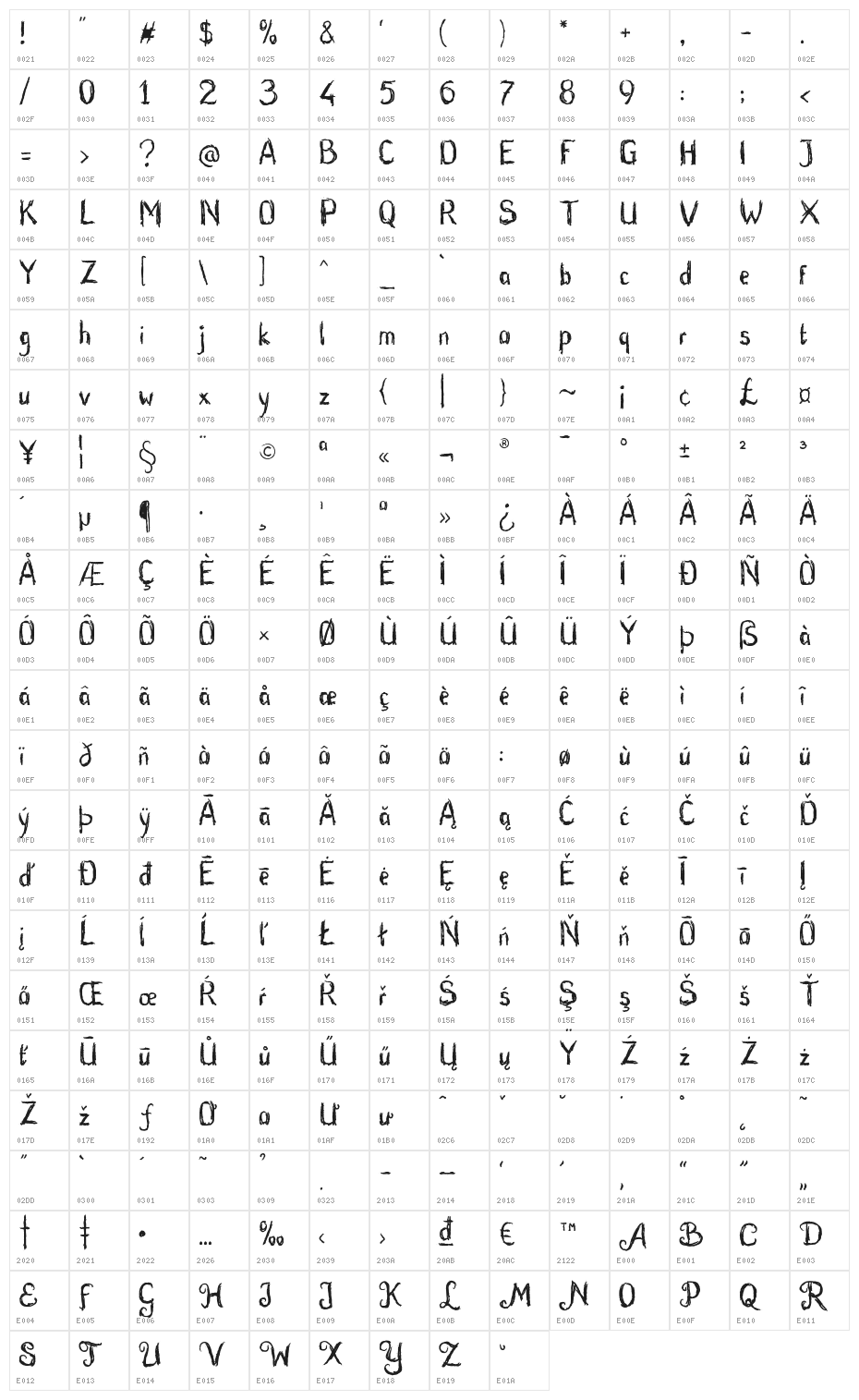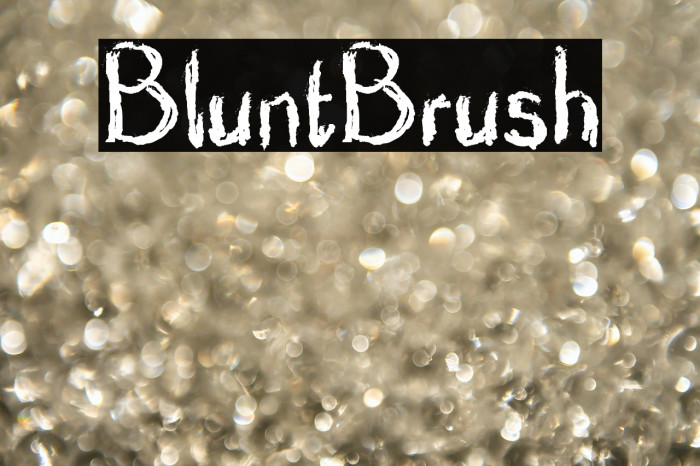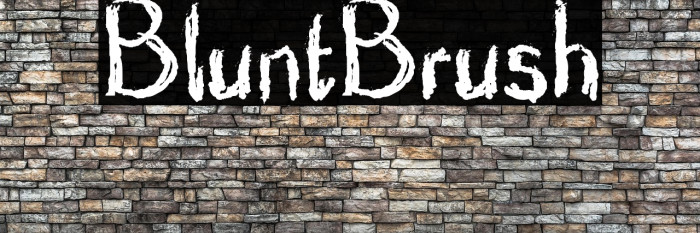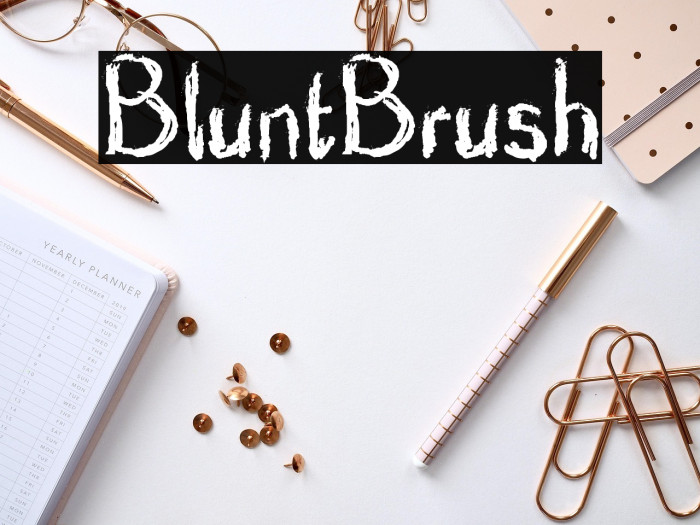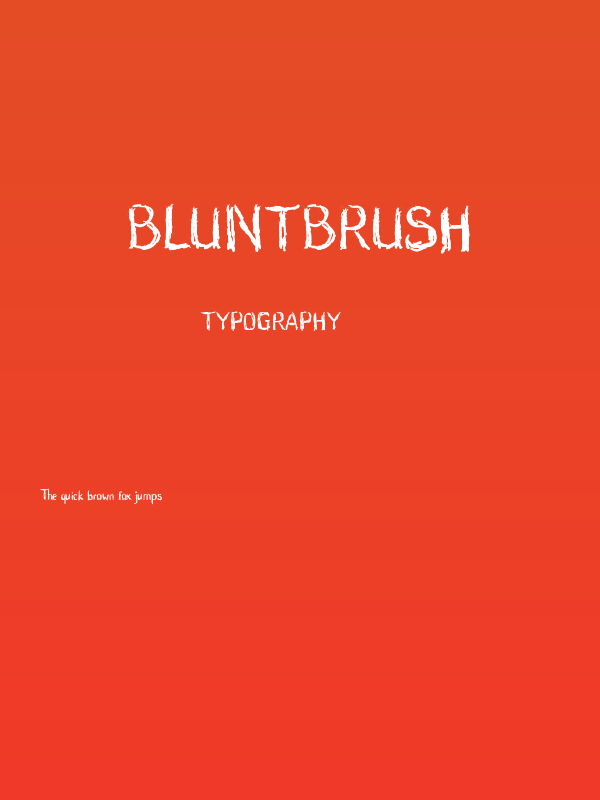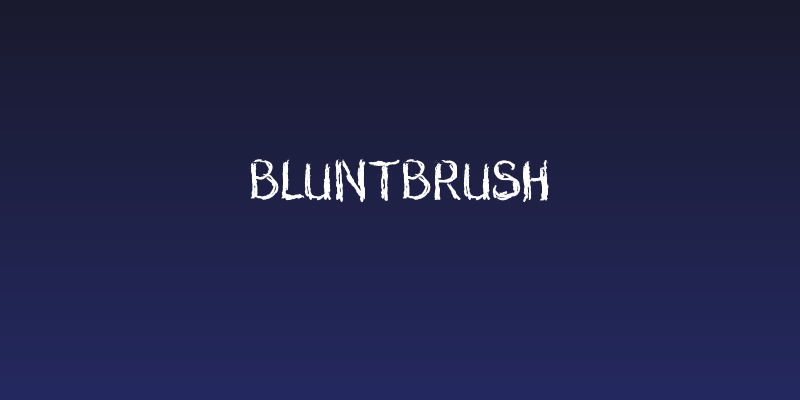
BluntBrush Font
BluntBrush Description
This font features a bold, expressive brush style that gives it a raw and artistic appearance. The characters are crafted with uneven strokes, creating a dynamic and textured look reminiscent of hand-painted lettering. The uppercase and lowercase letters maintain a consistent style, with a slightly rugged edge that adds to its unique charm. Numbers and special characters follow the same aesthetic, ensuring a cohesive visual experience. This font is ideal for projects that require a creative and informal touch, such as posters, artistic branding, or any design that benefits from a handcrafted feel.
Proposed ProjectsIdeal for posters, artistic branding, and designs needing a handcrafted touch.